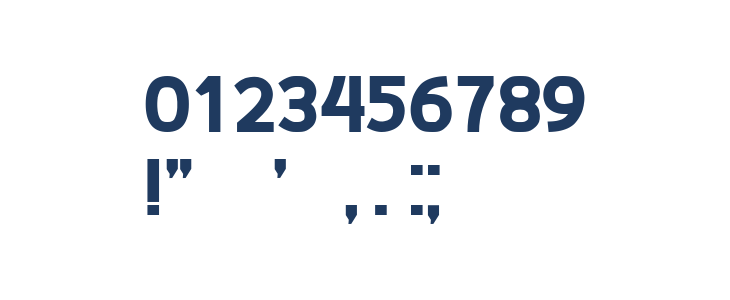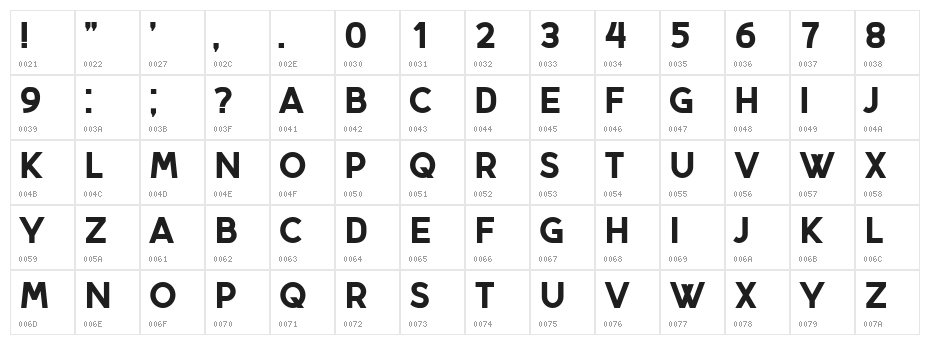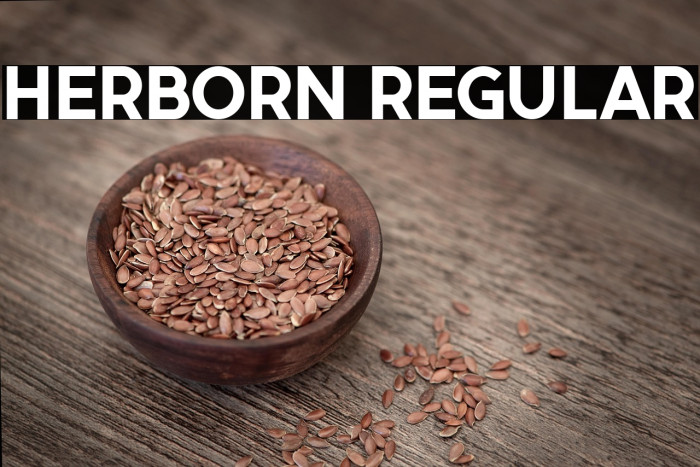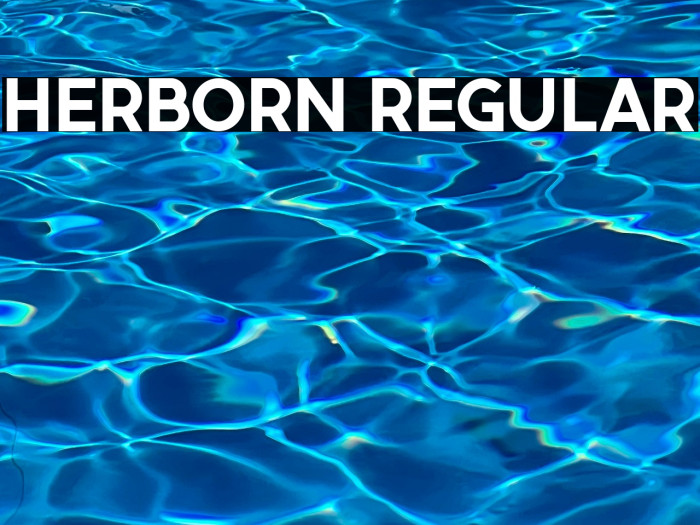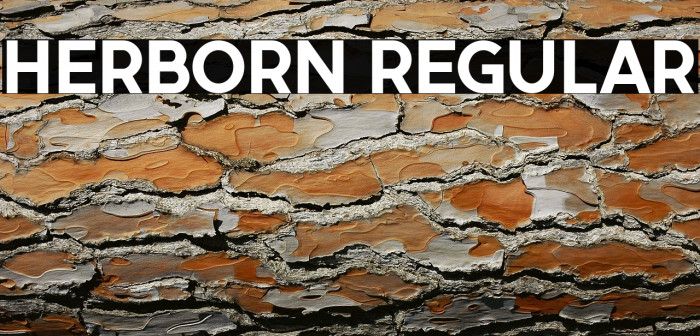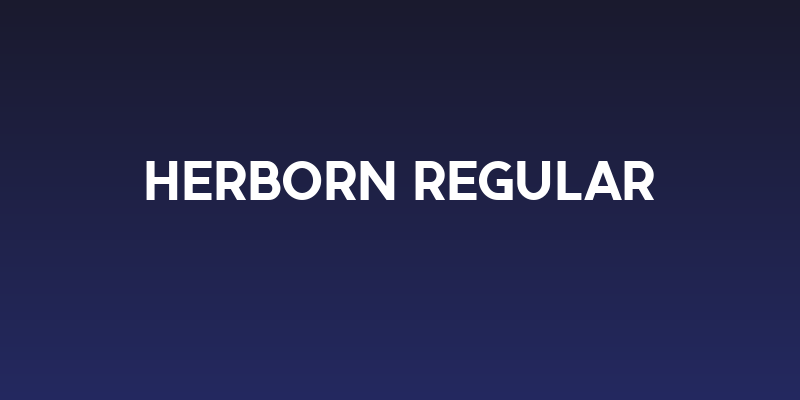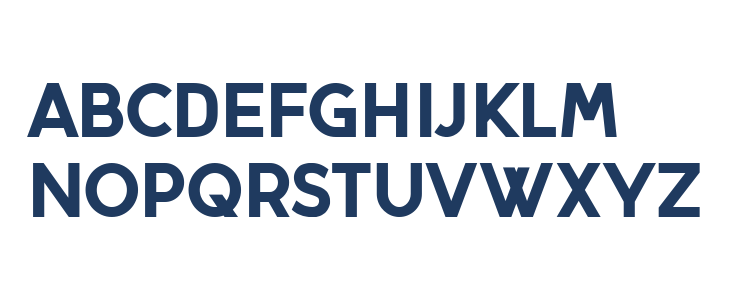
Herborn Regular Font
Herborn Regular Description
This typeface features a bold and modern design with clean, straight lines and uniform stroke widths. The characters are well-defined, offering excellent legibility and a strong visual impact. The uppercase and lowercase letters maintain a consistent style, with slightly rounded edges that soften the overall appearance. The numerals are clear and distinct, matching the robust style of the alphabet. Special characters are included, maintaining the same bold and straightforward aesthetic. This font is versatile, suitable for various design applications where clarity and impact are essential.
| Proposed Projects | Ideal for branding, headlines, posters, and digital media where a strong visual presence is needed. |